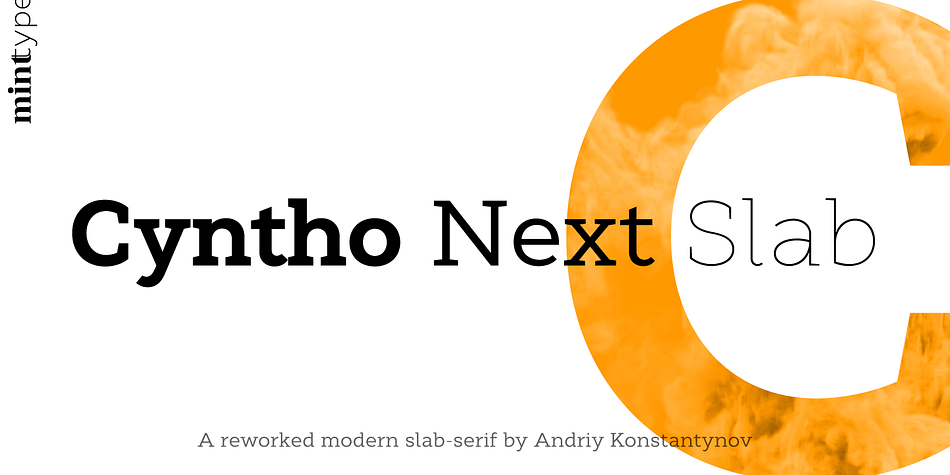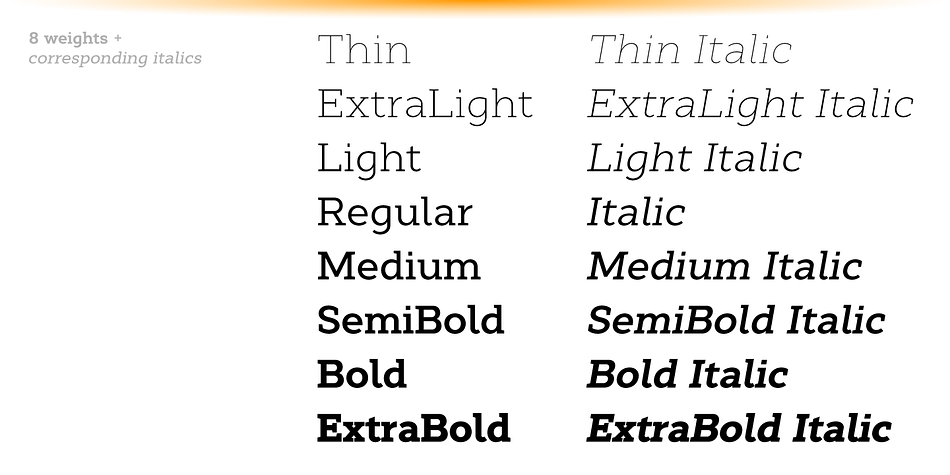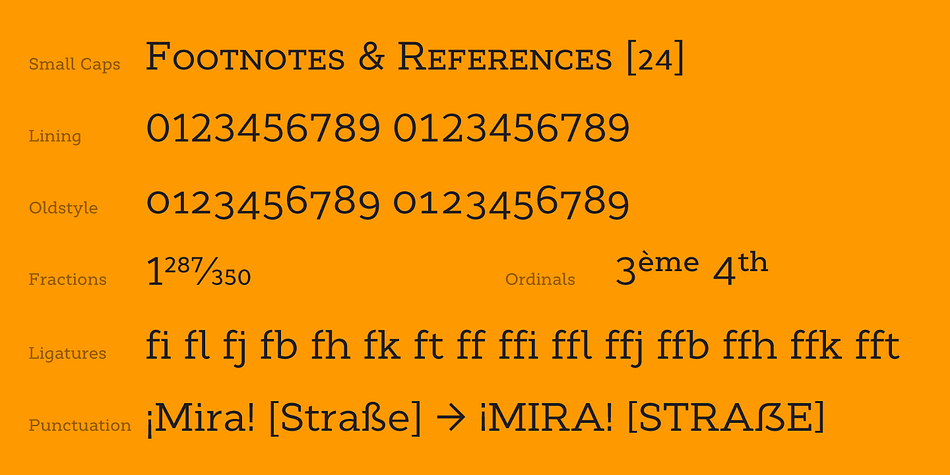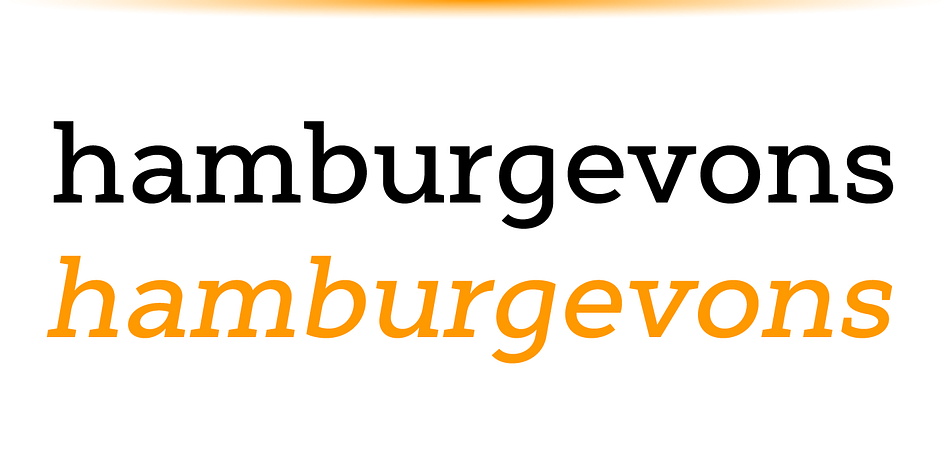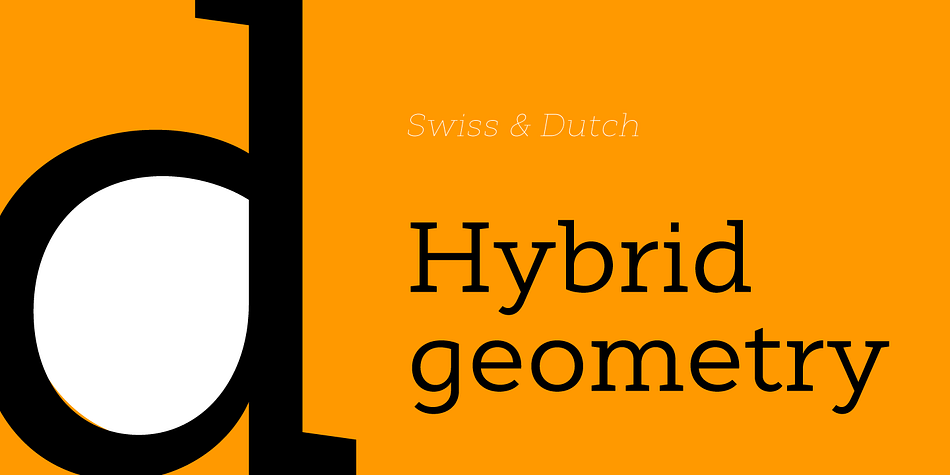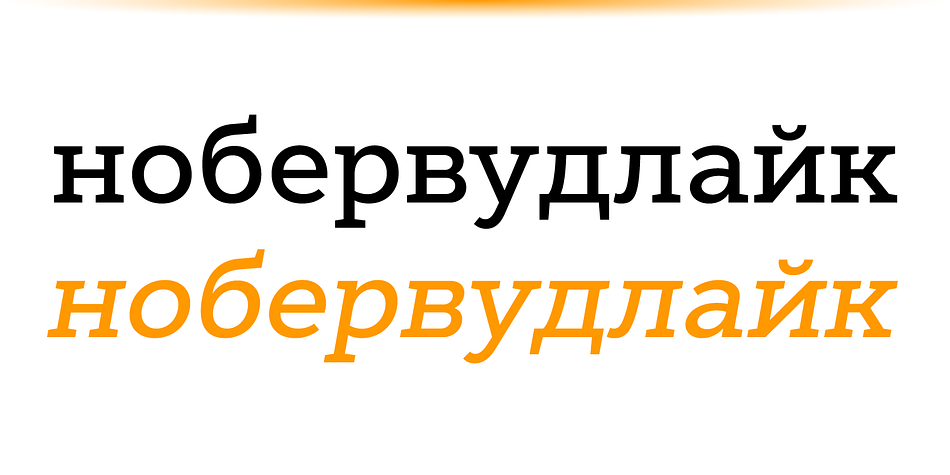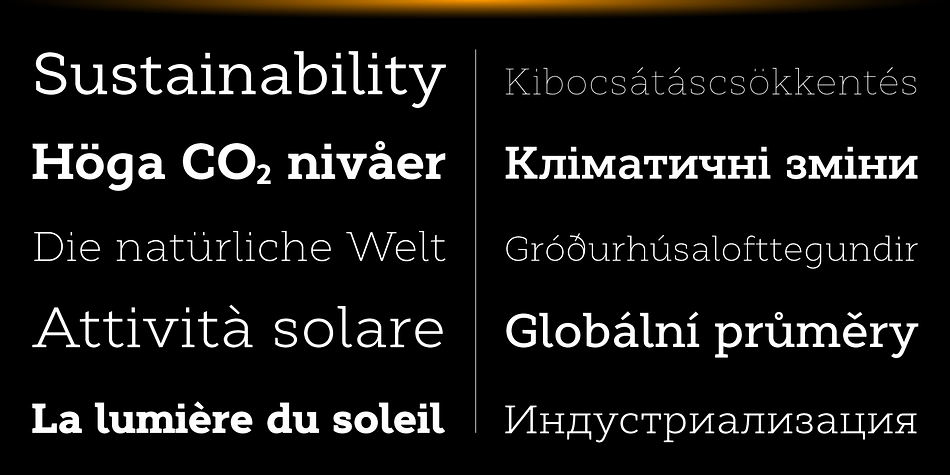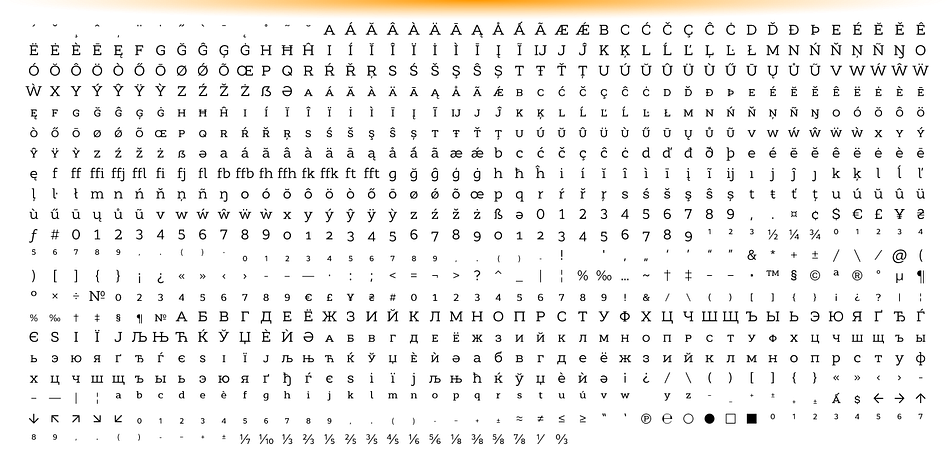
Designed by Andriy Konstantynov, Cyntho Next Slab is a slab serif font family. This typeface has sixteen styles and was published by Mint Type.
Cyntho Next Slab is a totally reworked typeface based on our prevoius bestseller Cyntho Slab Pro.
Cyntho Next Slab is the slab serif companion to Cyntho Next. It is a modern geometric slab serif based on a hybrid waterdrop-like shape with extensive language support including Cyrillic, rich with OpenType features, perfect for magazines, posters, advertising, corporate identity, and much more.